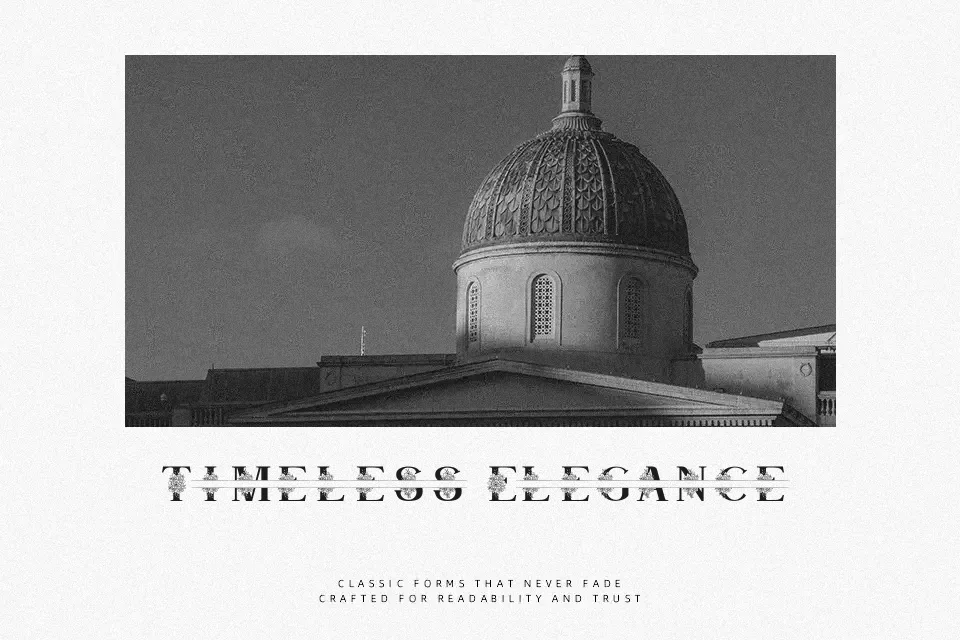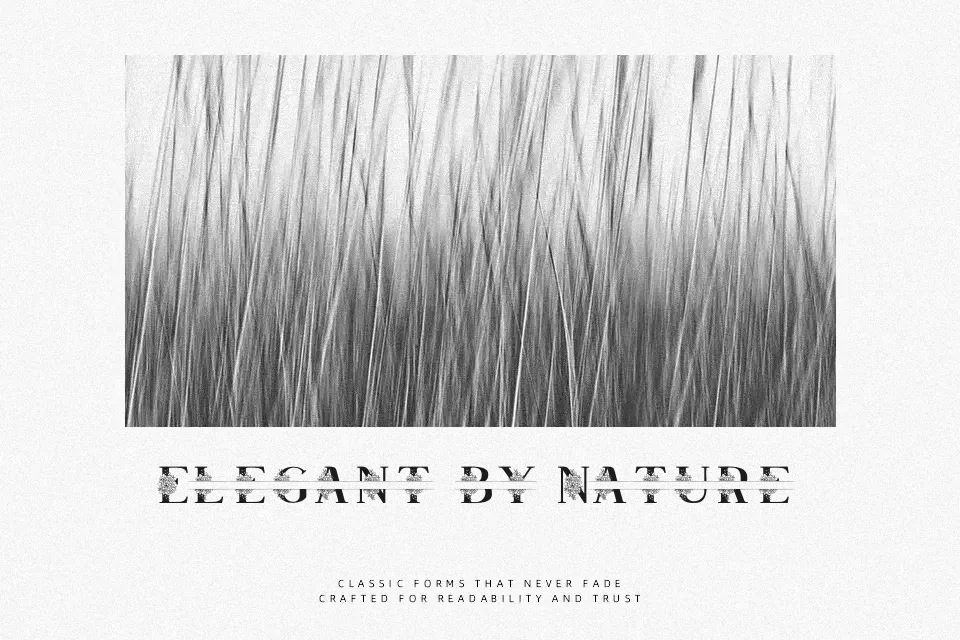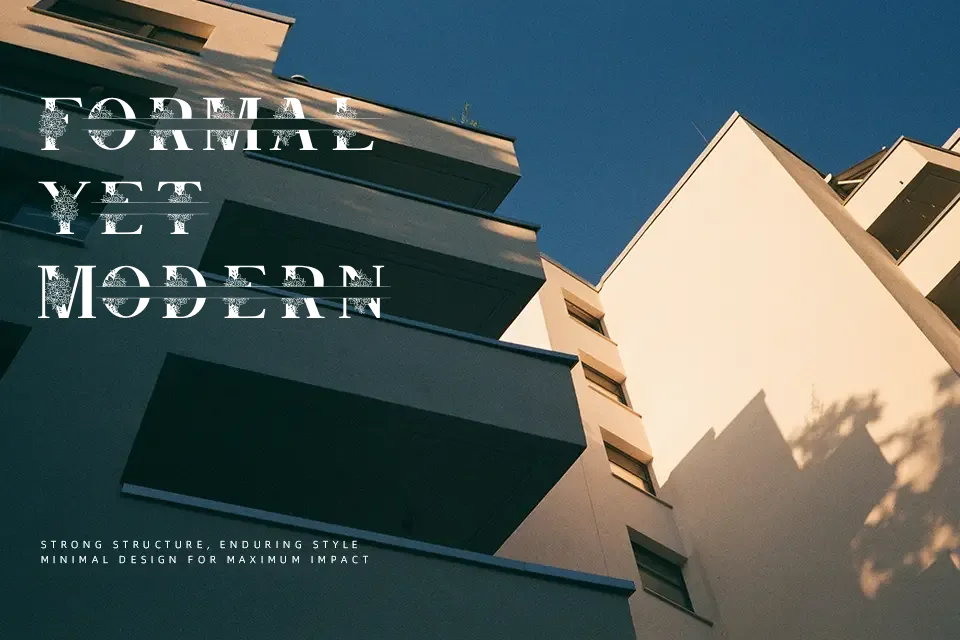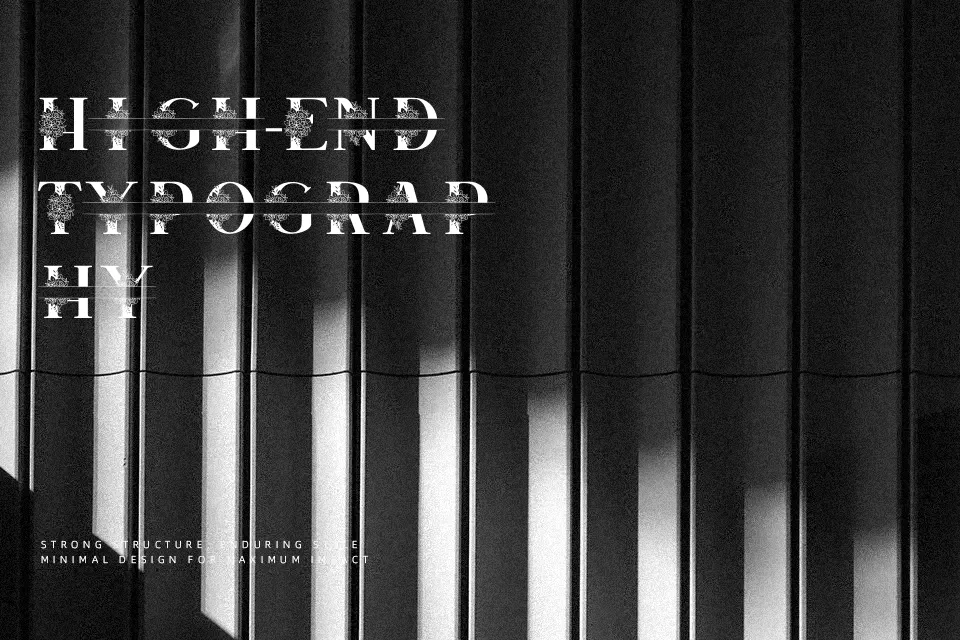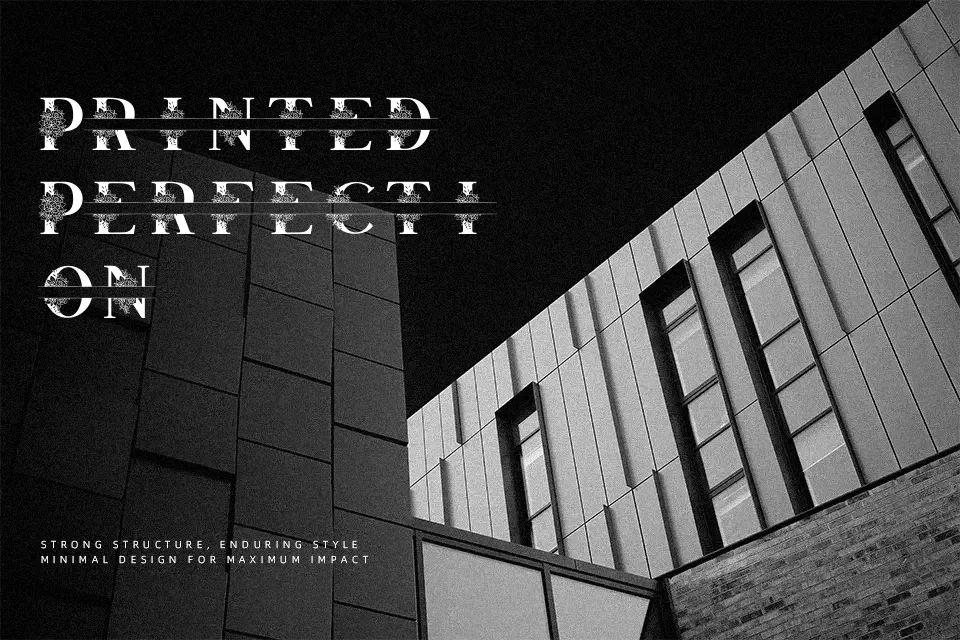
Satine Font
Designed by Din Studio
Satine Font combines classical serif proportions with intricate floral embellishments that weave directly through the primary stems and serifs of the letterforms. The uppercase characters maintain generous letter spacing to accommodate elaborate leaf and petal detailing, while the stroke weight shows moderate contrast with well-defined terminals. Because the ornate flourishes add considerable visual density, the letterforms achieve maximum clarity when set at larger display sizes for headlines or titles. However, the complex decorative outlines quickly lose legibility in dense paragraph settings and small digital captions.
wedding invitation suites, botanical product packaging, luxury boutique signage, greeting card titles
continuous body text, dense mobile UI labels, technical documentation, multi-column editorial paragraphs
Perfect for branding, headline, and invitation, with a artistic and decorative style.